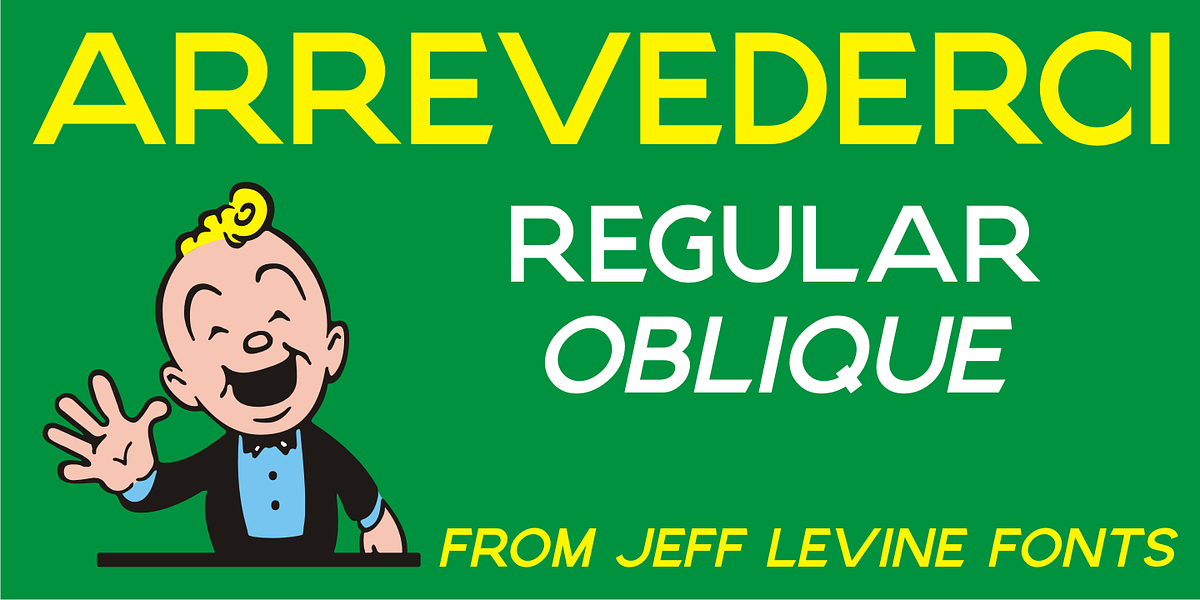
Arrevederci JNL
The 1954 sheet music for the song “Arrevederci Roma (Goodbye to Rome)” [from the MGM film “The Seven Hills of Rome”] was hand lettered in a medium-wide sans serif.